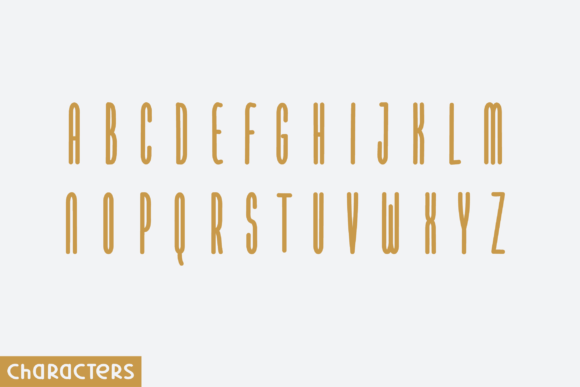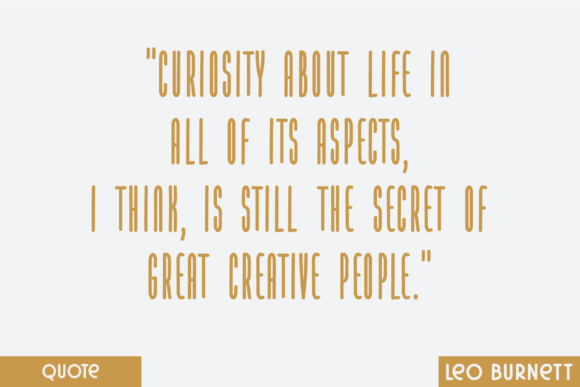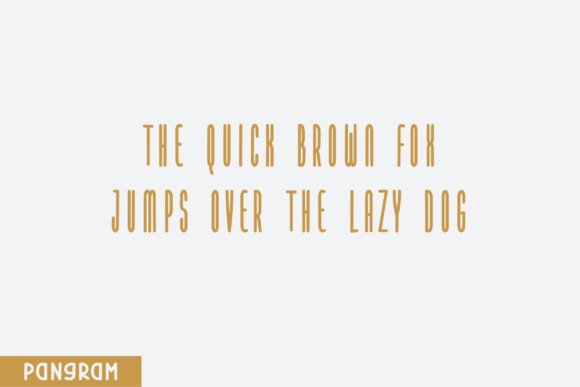
Introduction to Pavillon Font
Have you ever stumbled upon a design that makes you smile, not just because of its aesthetics but also because of the thought and effort that went into creating it? For designers, finding that perfect font can be a game-changer. It’s the difference between a design that looks mass-produced and one that has a personal touch. This is exactly what the Pavillon Font aims to deliver – a charming, hand-lettered sans serif display typeface that will bring a human touch to your creative projects.
Whether you’re working on a project that requires a transparent background or a free download, Pavillon Font is a high-quality design resource that will elevate your work. Its round-ended letters are not only adorable but also functional, making it perfect for any creative project that needs a touch of authenticity.
Pavillon Font
• Unique, elegant design suitable for various creative projects and designs.
• Perfect for use in logos, branding materials, and other creative projects where a touch of elegance is required.
Honest Review: Pavillon Font
I recently had the chance to work with the Pavillon Font and I must say, it’s been a game-changer for my creative projects. This high-quality font is perfect for designers looking for a unique and elegant touch.
What works well: ✨ The Pavillon Font is incredibly versatile, making it suitable for a wide range of design applications, from branding and logos to editorial and advertising materials. The font’s transparent background feature also allows for seamless integration with various design elements.
Here are some of the key features that I love about the Pavillon Font:
• High-quality design: The font’s clean and modern aesthetic makes it perfect for creative projects.
• Transparent background: This feature is a huge plus, allowing me to easily integrate the font with other design elements.
Limitations: ⚠️ While the Pavillon Font is an excellent choice for most design projects, it may not be suitable for projects requiring a more extensive character set. Additionally, the font’s transparent background can sometimes make it difficult to read on dark backgrounds.
Overall, I’m thoroughly impressed with the Pavillon Font and would highly recommend it to any designer looking for a high-quality, free design resource.
Tips for Getting the Most Out of Pavillon Font
To get the most out of Pavillon Font, use it in conjunction with other high-quality design resources. Experiment with different font sizes and colors to create a unique and eye-catching design.
The Pavillon Font is commonly used in creative projects such as logos, business cards, and brochures. Its high quality and transparent background make it an ideal choice for designers looking to create professional-looking designs.